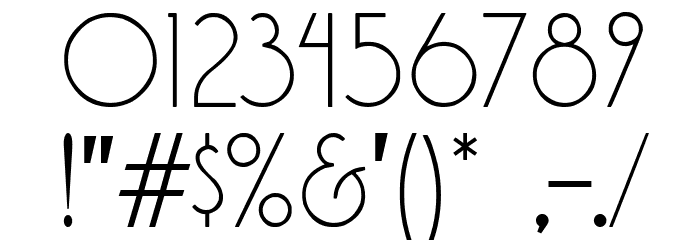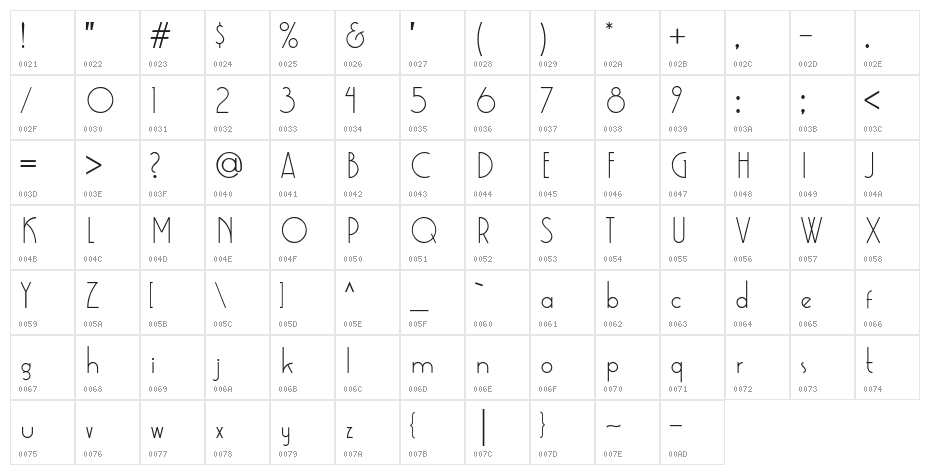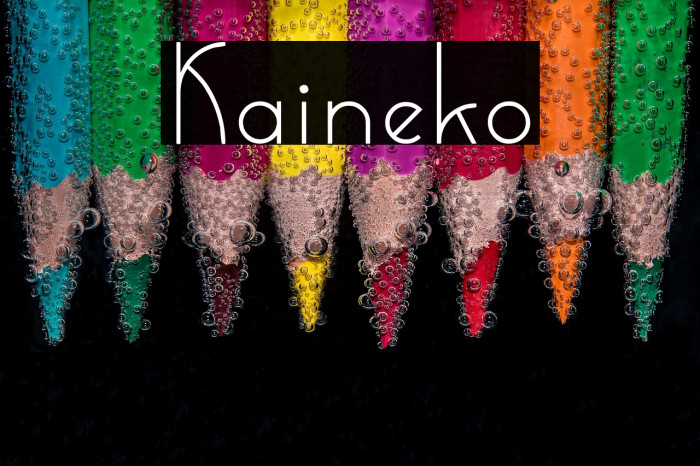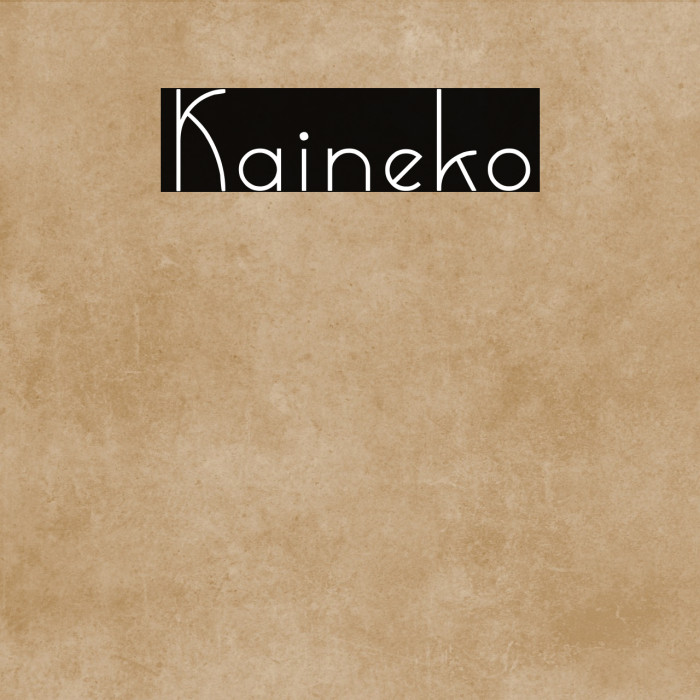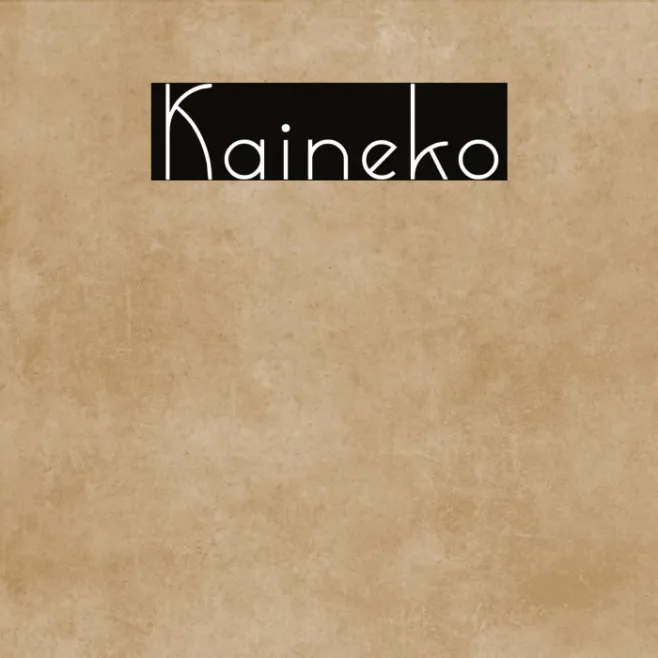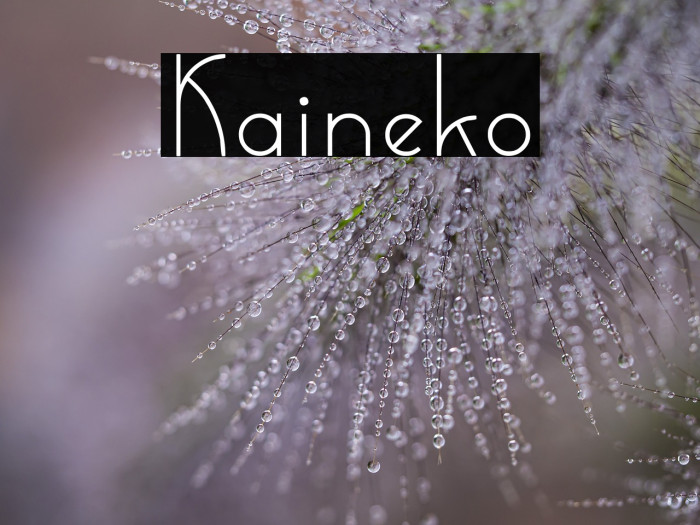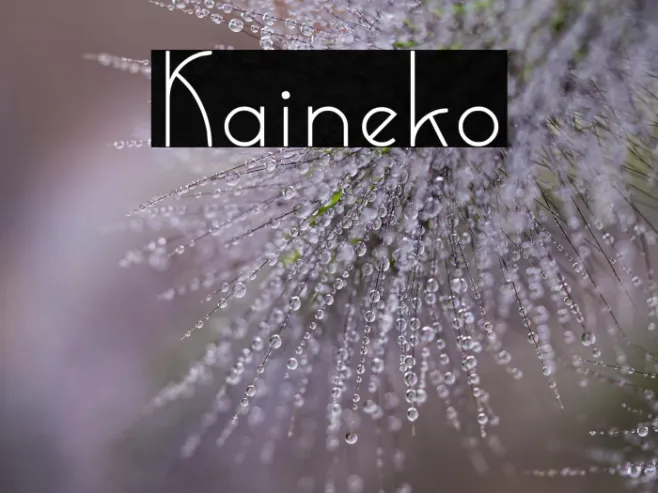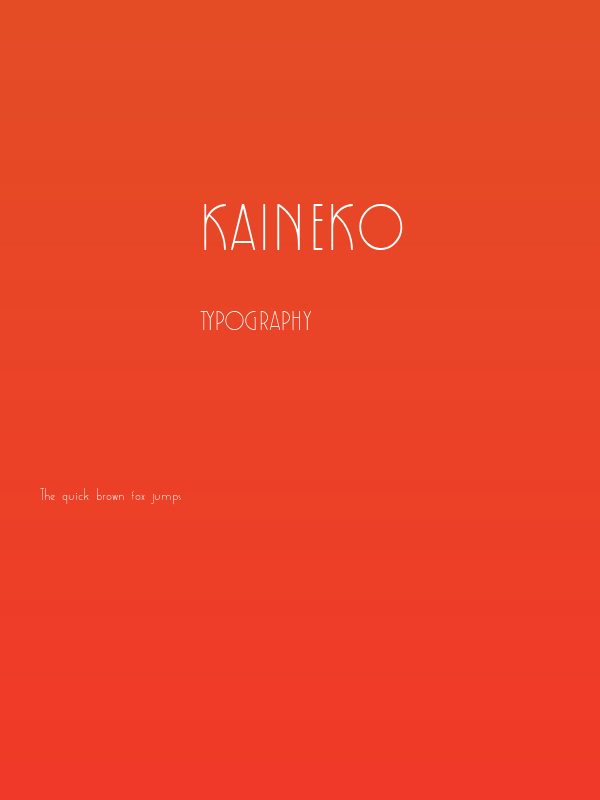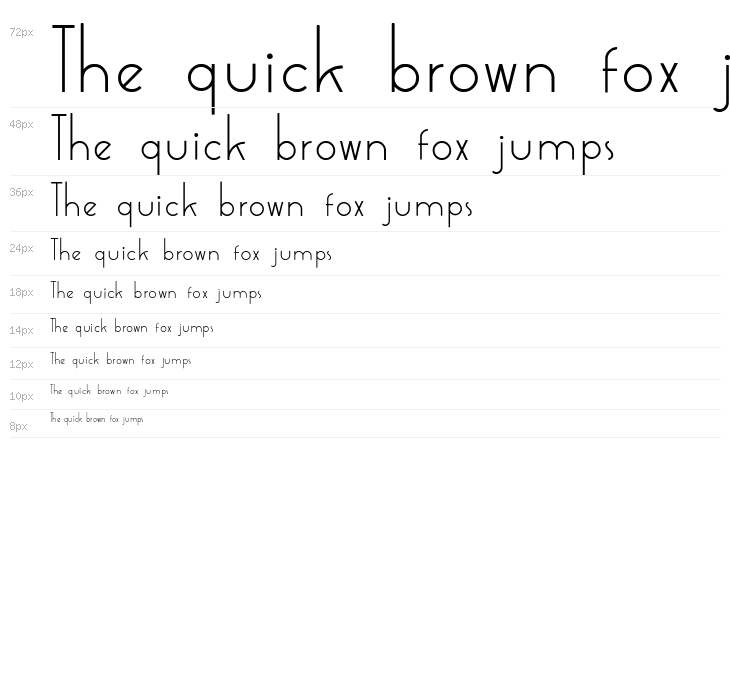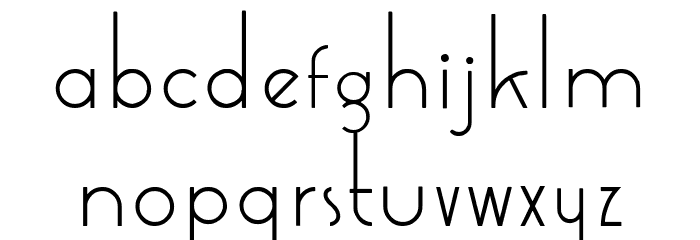
Kaineko Font
Kaineko Description
This font features a sleek and elegant design with thin, elongated letterforms that convey a sense of modern sophistication. The characters are uniformly narrow, giving the typeface a condensed appearance. The uppercase letters are tall and slightly curved, while the lowercase letters maintain a consistent height with subtle variations in stroke width. The numerals are clean and align well with the overall aesthetic, providing clarity and readability. Special characters are designed with the same minimalist approach, ensuring they blend seamlessly with the rest of the typeface. This font's refined style makes it suitable for a variety of design applications.
| Proposed Projects | Ideal for fashion magazines, luxury branding, minimalist posters, and elegant invitations. |